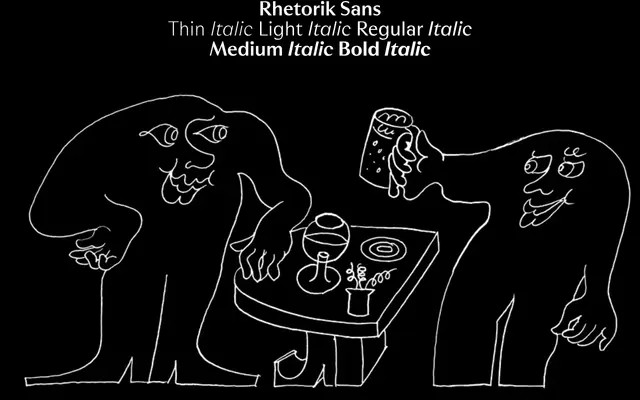
Rhetorik Sans specimen from AllCaps
A clean grotesque sans from AllCaps spanning five weights with italics and a broad set of OpenType features suited to editorial and institutional use.
Five weights from Thin to Bold, each with a matching italic, give the family reasonable range for both display and text settings. A generous OpenType feature set covers fractions, superscript, subscript, tabular figures, case-sensitive forms and multiple stylistic sets. Sample copy referencing postmodern architecture and cultural institutions suggests a positioning towards design-led editorial and cultural contexts.
A clean, neutrally proportioned sans-serif with grotesque characteristics, offering multiple stylistic alternates and a range of weights from Thin to Bold with matching italics.